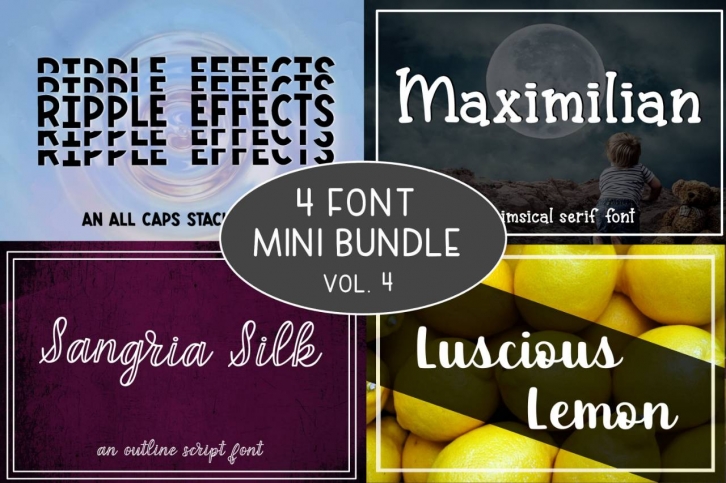
4 Mini Bundle is a gorgeous font that was realeased on April 13, 2020. The font can be used in many style contexts and design environments. Perfect for invitations, magazines, websites, logos, and more! It was designed by Stacys Digital Designs and the file size is 10.87 MB. Thanks for checking out this font!